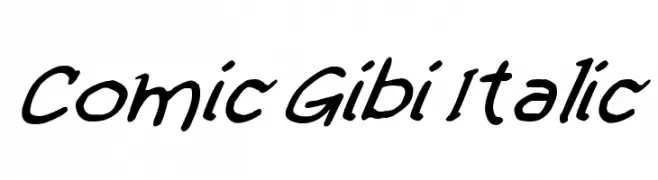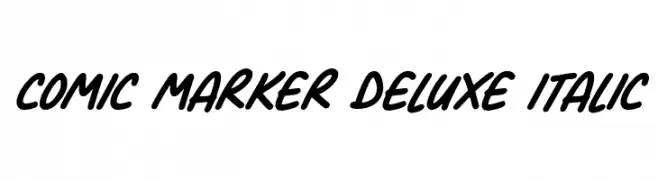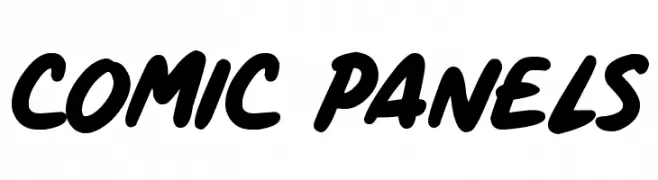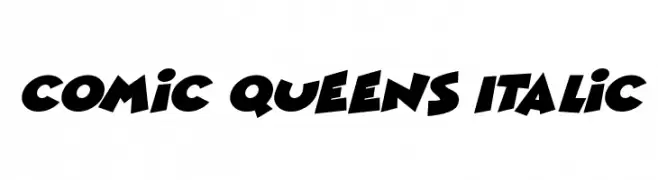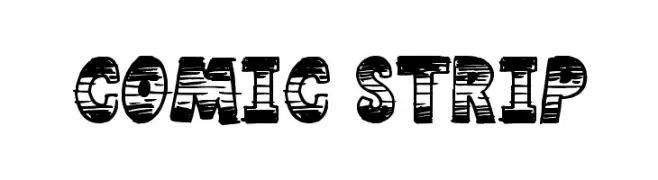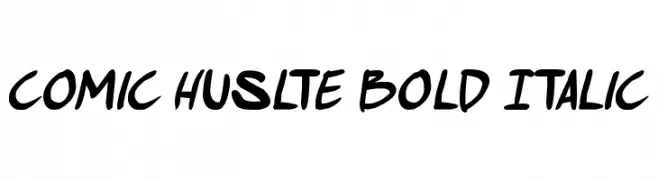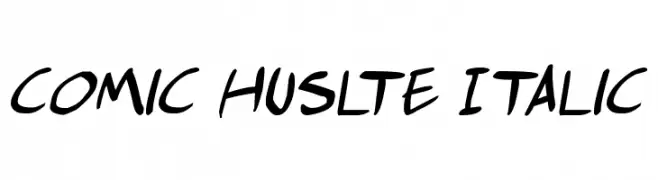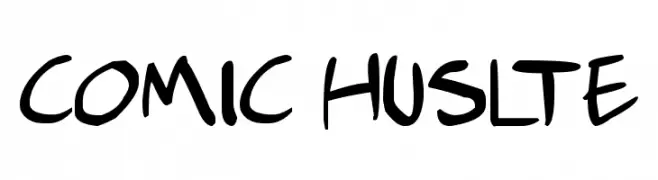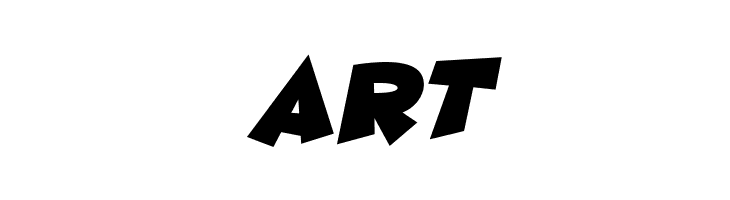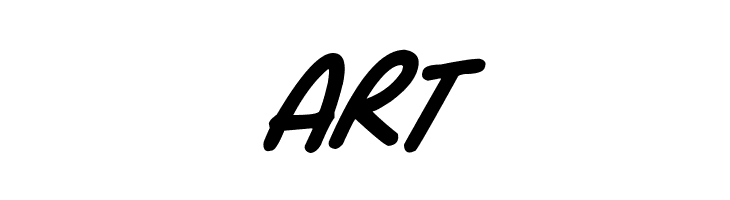
A playful, comic-style handwritten font with bold, rounded strokes.
A bold, hand-drawn font with a playful, comic-like style.
A bold, italicized handwritten font with a playful and dynamic style.
A bold, italicized, and playful handwritten font.
A bold, playful, and italicized font with smooth, rounded strokes.
A bold, playful font with a comic book style and hand-drawn appearance.
A bold, playful font with italicized, cartoonish characters.
A playful, bold font with a cartoonish, hand-drawn style.
A bold, cartoonish font with thick, rounded strokes and a playful style.
A bold, comic-strip style font with dynamic, sketch-like lines.